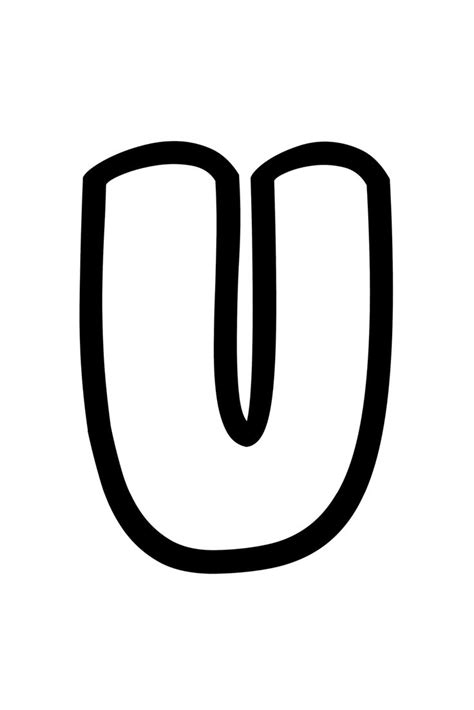
Bubble Letters U: Fun Fonts & Creative Styles
Hey there, Readers! Have you ever wanted to add a touch of whimsy and personality to your writing? Do you find yourself drawn to the playful charm of bubble letters? You're in luck! Bubble letters, with their rounded, bouncy aesthetics, are a fantastic way to make your words pop and stand out. They can transform ordinary text into eye-catching masterpieces, adding a touch of fun and creativity to any project, from birthday cards to social media posts to even professional presentations.
I've been exploring the world of bubble letters for quite some time, diving deep into their history, their various styles, and how you can effortlessly incorporate them into your own creative endeavors. This guide is packed with insights and tips to help you master the art of bubble letters and unlock your inner calligrapher.
Unveiling the Magic of Bubble Letters
A Short History of Bubble Letters
The origins of bubble letters, like many artistic expressions, lie in the realm of childhood creativity. They emerged as a natural extension of playful handwriting, fueled by a desire to make words more visually appealing. The rounded shapes, often resembling balloons or bubbles, add a sense of joy and lightheartedness.
Over time, bubble letters evolved beyond the realm of childhood scribbles. Artists and designers embraced their versatility, incorporating them into posters, logos, and even street art. Bubble letters have become a recognized and celebrated form of graphic design, finding their place in various creative disciplines.
The Versatility of Bubble Letters
Bubble letters are remarkably versatile, capable of adapting to a wide range of styles and occasions. They can convey a sense of playfulness for children's projects or adopt a more sophisticated and elegant approach for formal invitations.
Here are a few examples of how bubble letters can be used:
- Birthday Cards: Add a touch of personal flair to your birthday wishes with a customized bubble letter greeting.
- Social Media Graphics: Catch the eye of your followers with attention-grabbing posts adorned with bubble letters.
- Posters and Flyers: Make your announcements or promotions stand out with bold and playful bubble letter typography.
- Wedding Invitations: Add a unique and whimsical touch to your special day with elegant bubble letters.
- Logos and Branding: Create a memorable brand identity with eye-catching logos crafted using bubble letters.
Exploring Different Bubble Letter Styles
The beauty of bubble letters lies in their adaptability. There are countless ways to create them, each with its own unique personality. Whether you prefer a classic, rounded look or a more stylized, artistic approach, there's a bubble letter style waiting to be discovered.
Classic Bubble Letters
Classic bubble letters are characterized by their simple, rounded shapes. They are easy to create and are a great starting point for beginners. Think of the classic bouncy lettering you find on children's books or alphabet charts.
Modern Bubble Letters
Modern bubble letters take the classic style and infuse it with contemporary flair. These letters often feature sharper edges, more intricate details, and a more sophisticated overall feel. They can be used for projects that require a touch of edgy elegance.
Hand-Lettered Bubble Letters
Hand-lettered bubble letters are a beautiful way to add a personal touch to your projects. Each letter is unique, reflecting the individual style of the artist. Hand lettering allows you to experiment with different sizes, weights, and embellishments, creating a truly personalized masterpiece.
Tips for Creating Stunning Bubble Letters
Ready to unleash your inner calligrapher? Here are some tips to help you create stunning bubble letters that will impress your audience:
Choose the Right Tools
Just like any artistic endeavor, choosing the right tools is crucial. For bubble letters, you'll need a writing surface (paper, canvas, or digital tablet), a drawing instrument (pens, markers, or a stylus), and a ruler or guide (optional, but useful for keeping your letters uniform)
Start with Simple Shapes
Don't get overwhelmed by intricate designs right away. Begin with simple, rounded shapes that resemble balloons or bubbles. Use a ruler or guide to ensure your letters are consistent in size and shape.
Experiment with Styles
Don't be afraid to experiment with different styles! There are endless possibilities when it comes to bubble letters. Try using different colors, textures, and weights to create unique and eye-catching designs. Add embellishments like hearts, stars, or dots to add a decorative touch.
Practice, Practice
Like any skill, practice is key to perfecting your bubble letter technique. The more you practice, the more confident and proficient you'll become.